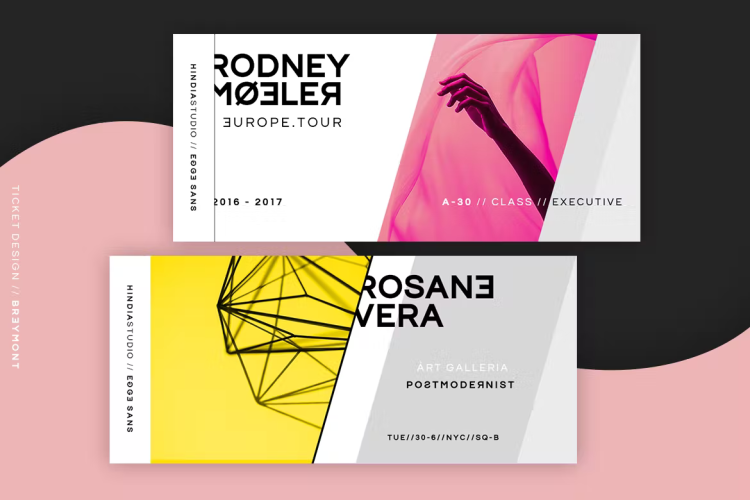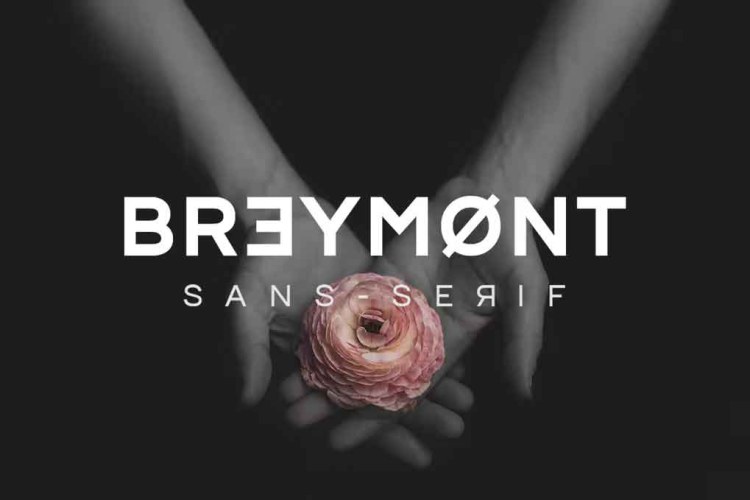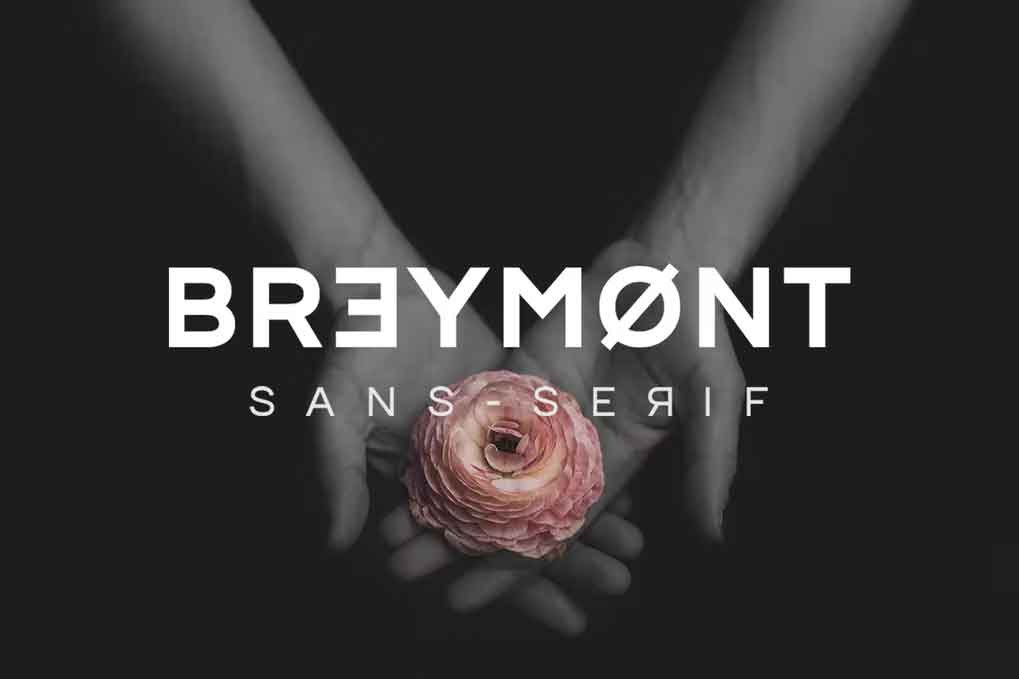
Breymont Font
Breymont | A reliable tool for creatives
Minimalist, Elegant, and Exquisite. Breymont is the new modern all caps typeface that always feels right under any circumstances. The dimensions of the letters and the general sense are modern and contemporary but also retain the refined functional touch of the rational structure. The result is a unique and unorthodox typeface that is perfectly suited for graphic design application ranging from editorial and corporate design to web and interaction design.
Where Breymont Font works best
Breymont Font stays legible at small sizes, which makes it a strong choice for navigation, buttons and dashboards in web design and app interfaces.
Clean sans serifs like Breymont Font are the default language of SaaS, fintech and product branding.
What is Breymont Font good for?
Breymont Font is a Sans Serif Fonts typeface tagged Creative, Editorial, Elegant, Minimalist. It works well for headlines, logos, posters, social media graphics and branding projects that need a distinctive sans serif fonts look.